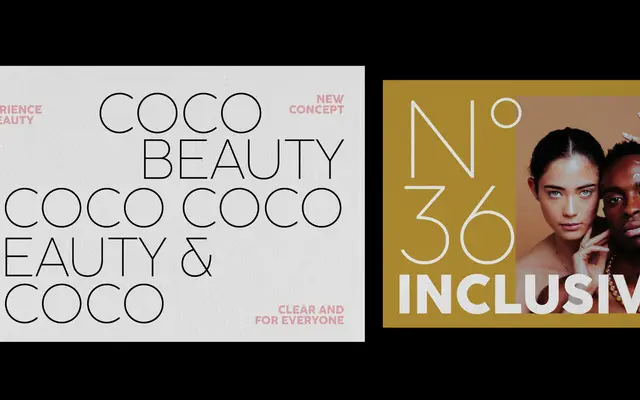
Coco Sharp
Zetafonts · Cosimo Lorenzo Pancini · 2021
A geometric sans with humanist corrections and five graded x-height sub-families, evolved from the Coco typographic project begun in 2013.
Developed by Cosimo Lorenzo Pancini with Francesco Canovaro and Andrea Tartarelli, Coco Sharp strips the rounded corners from its predecessors Coco Gothic and Cocogoose to produce a version equally suited to display headlines and running text. Five sub-families graded from XS to XL give designers direct control over x-height and readability across different point sizes, and variable font versions cover both weight and optical-size axes simultaneously. Over 2,000 glyphs support Latin, Greek and Cyrillic across more than 200 languages, with small capitals, positional figures and alternate letterforms via OpenType.
Built on a geometric sans skeleton in the tradition of Futura, but with humanist proportions applied to key letterforms. Sharp terminals distinguish it from the rounded Coco Gothic and Cocogoose predecessors.